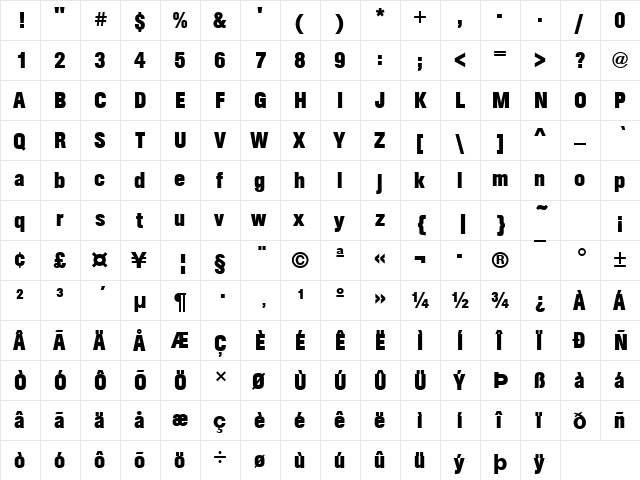
URWAccidaliaBucDCon Bold Font Preview
URWAccidaliaBucDCon Bold
Design Context for URWAccidaliaBucDCon Typeface
URWAccidaliaBucDCon is a composed and adaptable typeface that performs quietly and consistently across a wide range of design contexts. Its bold stroke weight gives it real presence on the page.